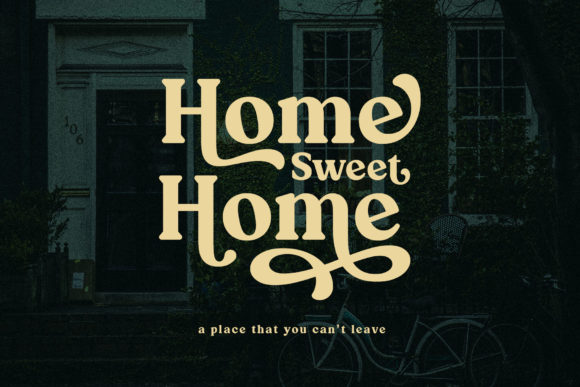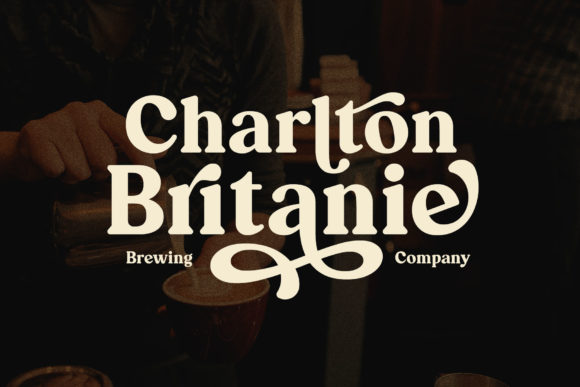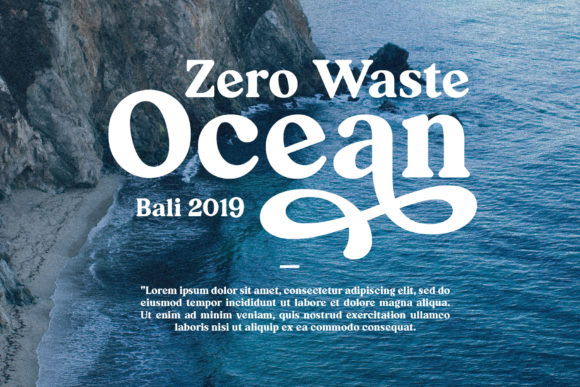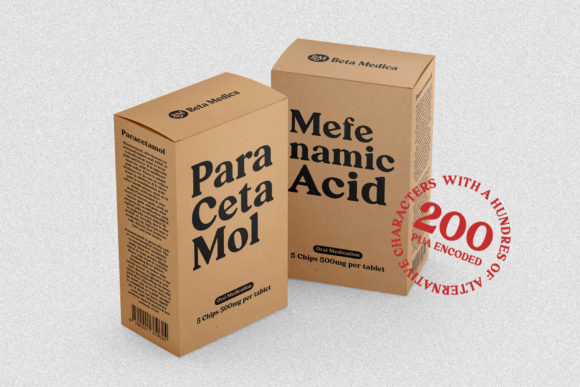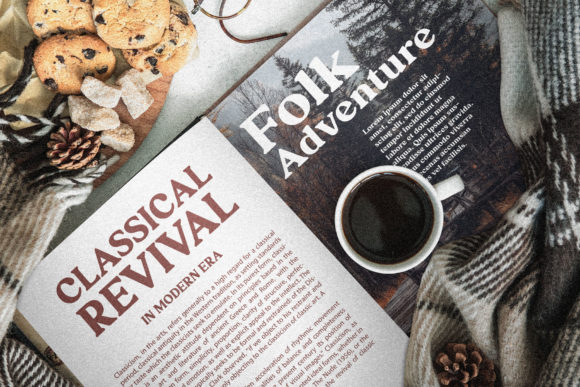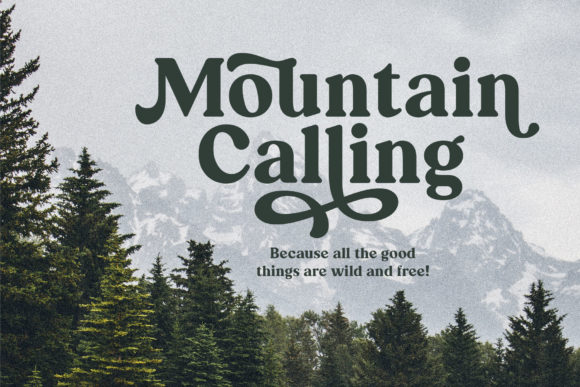
Introduction to Ranille Font
Ranille is a modern and classy serif font.
This elegant font features amazing alternates and ligatures It will elevate a wide range of design projects to the highest level, be it branding, headings, wedding designs, invitations, signatures, logos, labels, and much more.
Key Features of Ranille Font